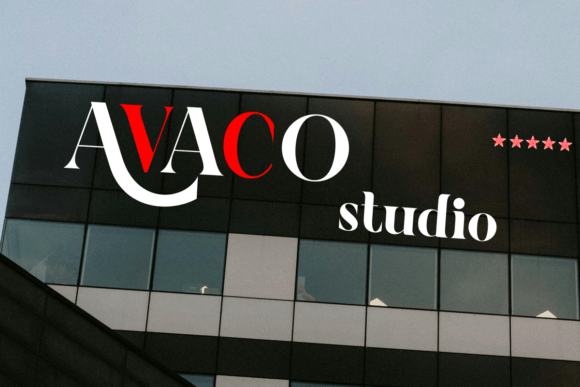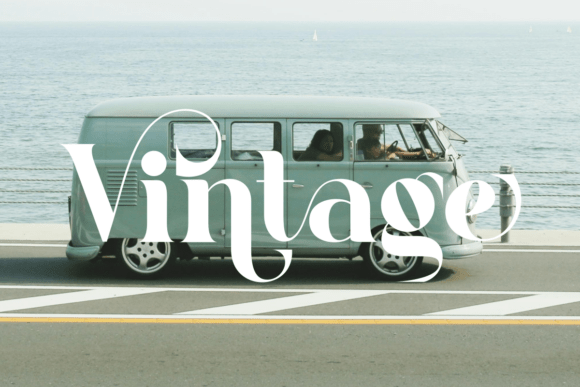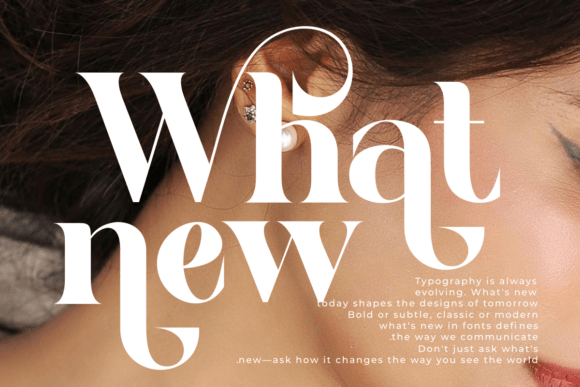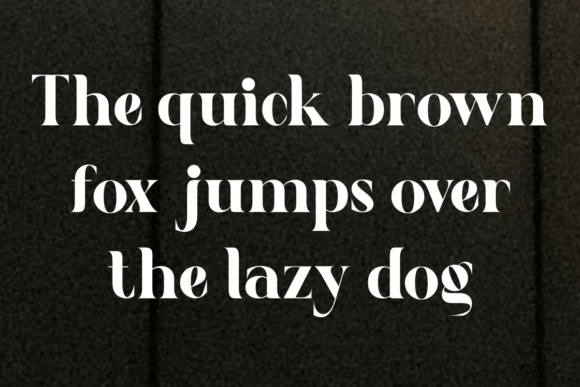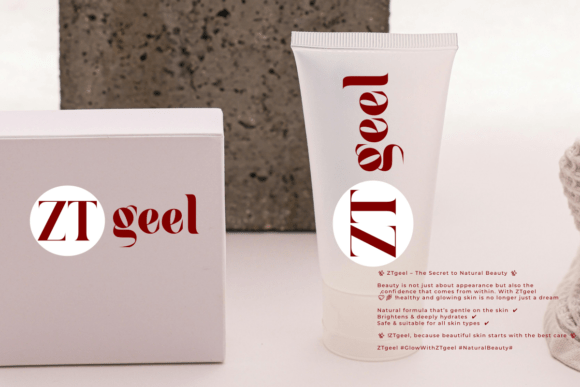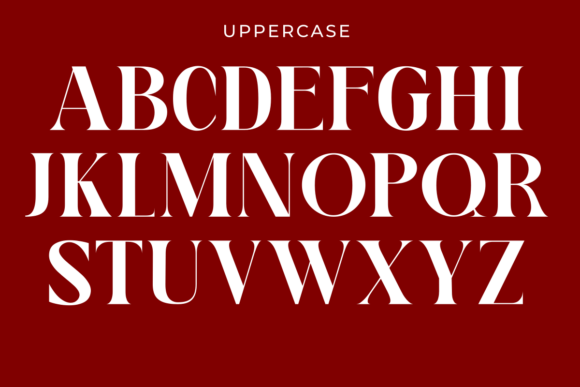
Introducing Aciro Grande Font: Elevate Your Designs with Elegance and Versatility
In the world of typography, a font can make or break a design. For designers and crafters seeking to elevate their visual identity, Aciro Grande Font is an excellent choice. This elegant serif font seamlessly blends classic luxury with a modern touch, making it perfect for a wide range of applications. In this article, we’ll explore the features and benefits of Aciro Grande, and how it can enhance your branding, editorial, and premium design projects.
Aciro Grande: A Font of Distinction
Aciro Grande is a sophisticated serif font that exudes elegance and refinement. Its classic design ensures timelessness, while its modern twist keeps it fresh and contemporary. The font comes in two distinct styles: Regular and Oblique, each catering to different design needs.
Regular Style: Bold, Strong, and Highly Readable
The Regular style of Aciro Grande is characterized by its bold, strong, and highly readable design. This makes it an ideal choice for headlines and body text, where clarity and legibility are paramount. The font’s classic serif structure provides a sense of tradition and stability, while its modern nuances inject a touch of sophistication.
Oblique Style: Subtly Slanted, Dynamic, and Expressive
For designs that require a bit more flair, the Oblique style of Aciro Grande is the perfect solution. Subtly slanted, this style adds a dynamic and expressive touch to your designs. It’s ideal for accents and standout designs, where you want to draw attention or create a sense of movement. The Oblique style maintains the elegance of the Regular style while introducing a sense of energy and playfulness.
Versatility and Elegance: The Aciro Grande Advantage
Aciro Grande’s greatest strength lies in its balance of elegance and versatility. This font can effortlessly adapt to various design contexts, from luxury branding to editorial projects. Its ability to convey a sense of sophistication and refinement makes it an excellent choice for premium designs.
Branding Applications
In branding, Aciro Grande can help establish a strong visual identity. Its elegant design is perfect for luxury brands, high-end products, and services that require a sophisticated image. The font’s readability ensures that your message is conveyed clearly, while its aesthetic appeal creates a lasting impression.
Editorial Applications
For editorial projects, such as magazines, newspapers, and books, Aciro Grande offers a level of sophistication and refinement. Its classic design ensures that your content is presented in a timeless and elegant manner, while its modern twist keeps the design fresh and engaging.
Premium Design Applications
Aciro Grande is also well-suited for premium design projects, such as advertising, packaging, and web design. Its versatility allows it to adapt to various design contexts, while its elegance ensures that your design stands out from the crowd.
In conclusion, Aciro Grande Font is an excellent choice for designers and crafters seeking to elevate their visual identity. Its elegant serif design, combined with its modern touch, makes it perfect for a wide range of applications. With its balance of elegance and versatility, Aciro Grande is sure to enhance your branding, editorial, and premium design projects. Whether you’re looking for a font that’s bold and strong or subtly slanted and expressive, Aciro Grande has got you covered.